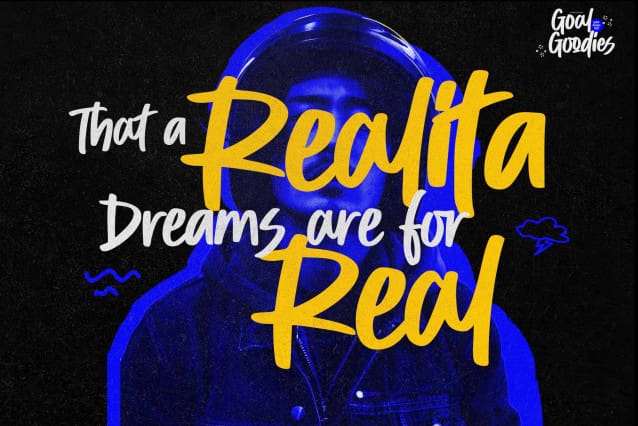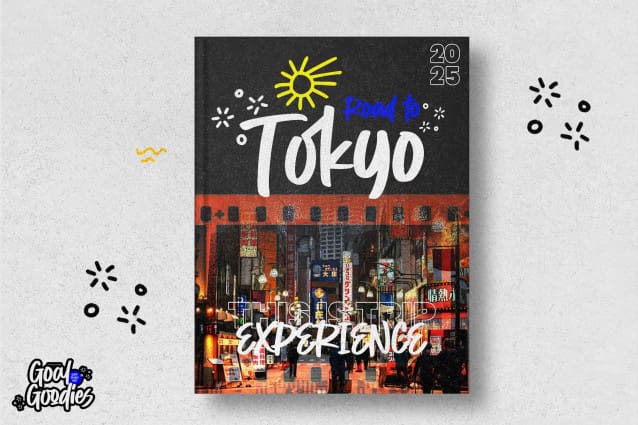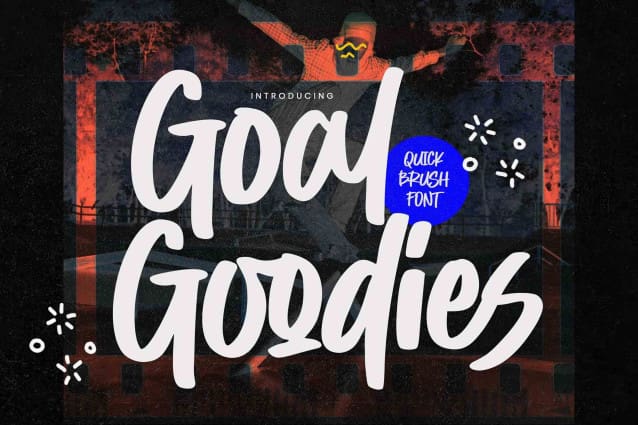
Goal Goodies Font
Goal Goodies Font – This is a Quick Brush Font, with quick written and with brush style, this font is perfect for making a strong statement in your designs.
Add the bold and authentic character of this Font to your next project and capture the essence of the minimalist aesthetic.